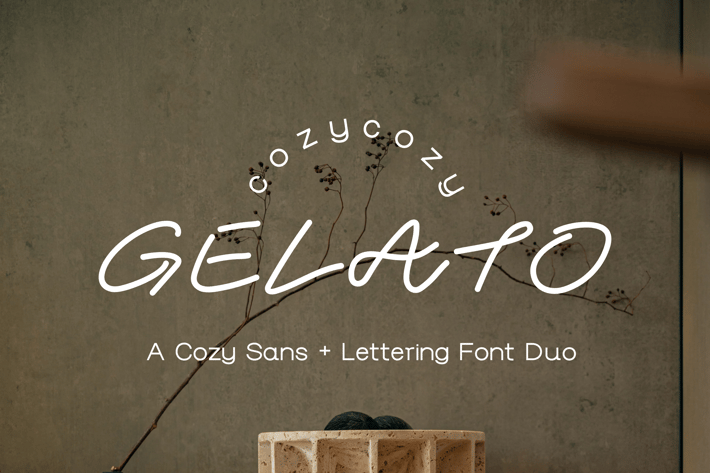
Cozy Gelato | Cozy Sans & Handlettering Font Duo
TheGelato
Say Hi to "Cozy Gelato" font Duo, a Cozy Sans and Handlettering Display Font Duo that is perfect uses as Product label Font, Handmade brand font, Handcrafted Packaging design font, Aesthetic Branding, Cozy Logo or any type-oriented projects!
Perfect blends for your quotations, banners, logos, product packaging, titles, headers, Business cards, menu lists, and invitation cards!